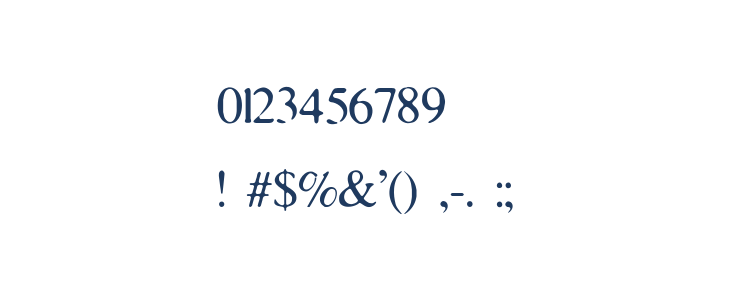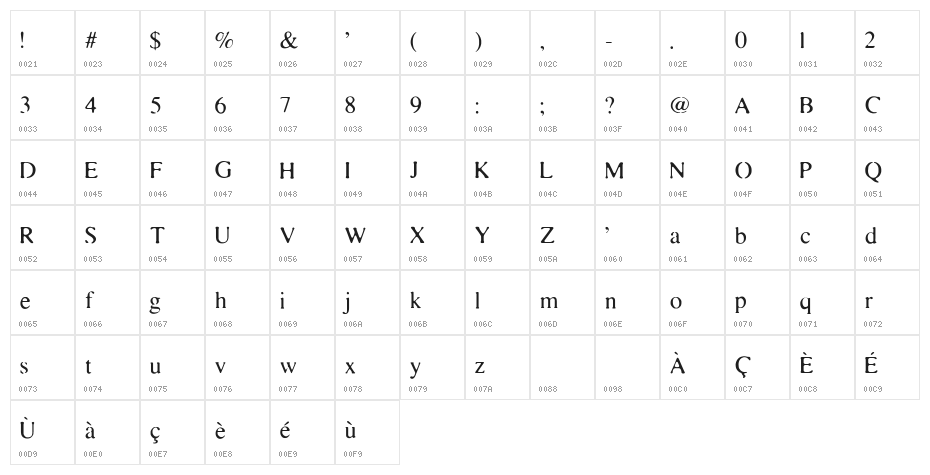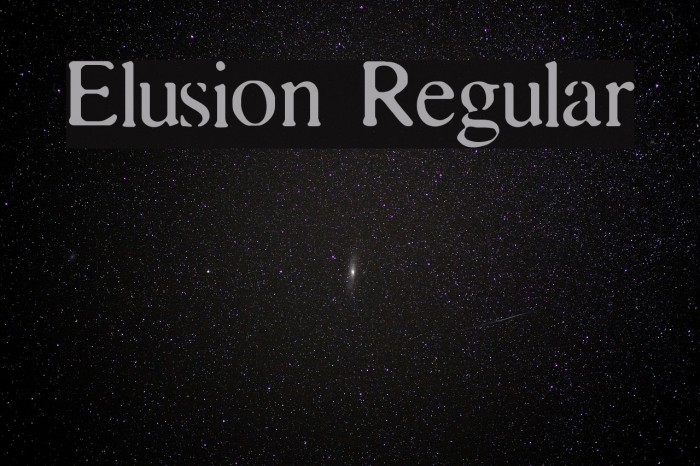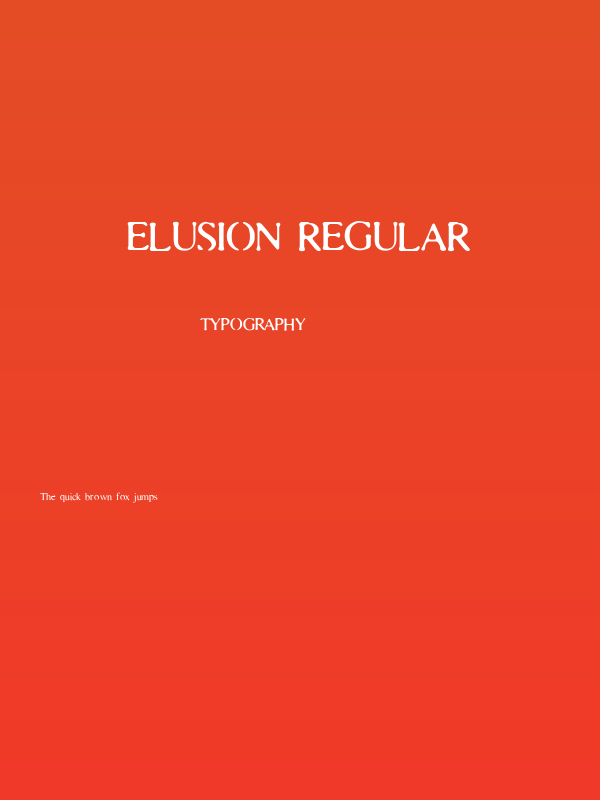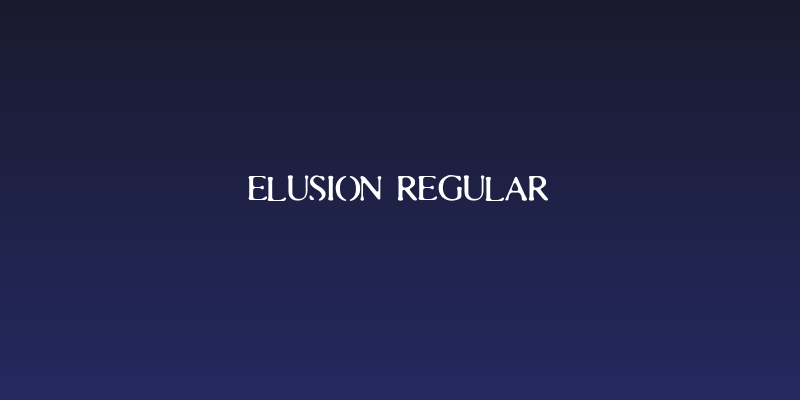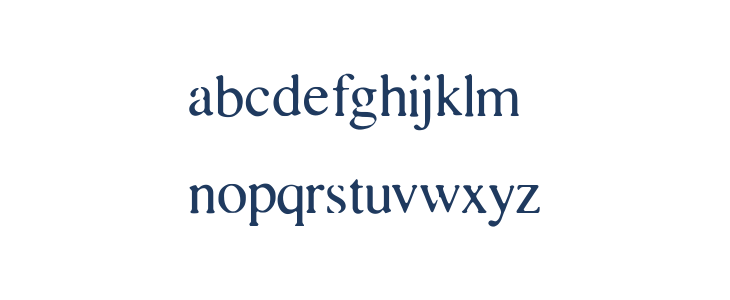
Elusion Regular Font
Elusion Regular Description
This font features a unique blend of classic and modern elements, characterized by its elegant curves and slightly flared serifs. The uppercase letters have a strong presence with a subtle sophistication, while the lowercase letters maintain a consistent flow, enhancing readability. The numerals are distinct and well-proportioned, complementing the overall aesthetic. Special characters are thoughtfully designed, adding versatility to the font's application. The font's style is both timeless and contemporary, making it suitable for a wide range of design projects.
| Overall Style | Classic |
| Use Case | Headlines, Body text, Logos |
| Proposed Projects | Ideal for branding, editorial design, invitations, and luxury packaging. |